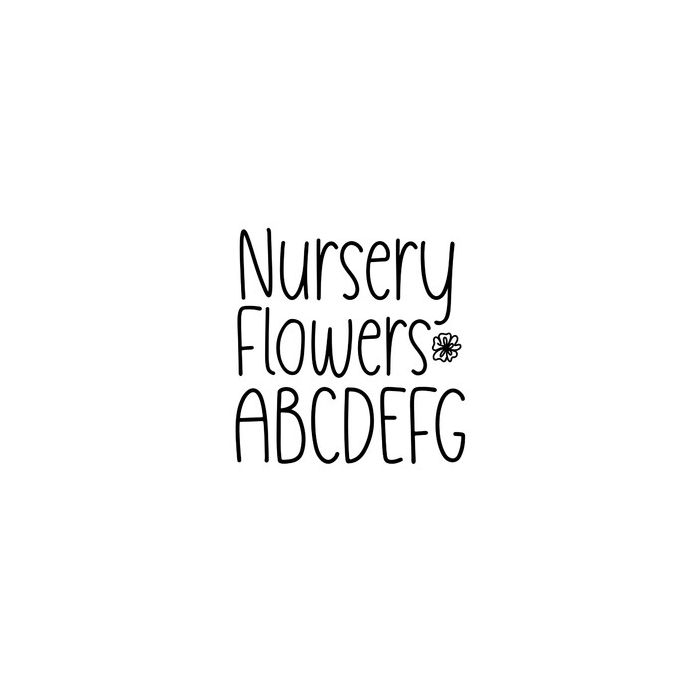
BFC Nursery Flowers Hand Lettered Cute Handwriting Font
Nursery Flowers is a cute handwriting font with a couple of flower characters. Use < > to find them.